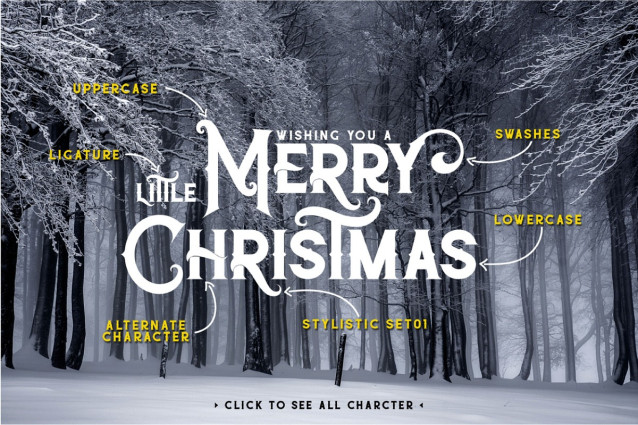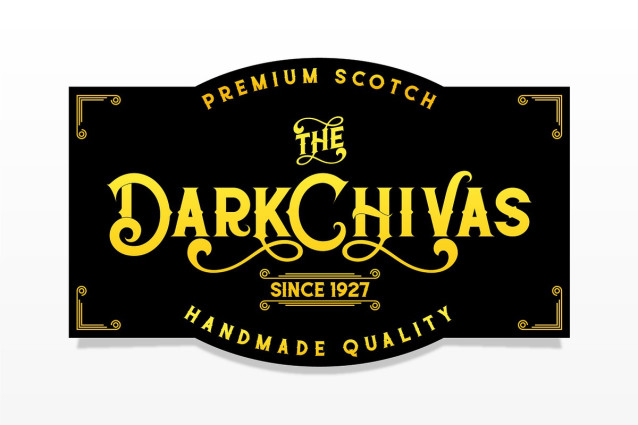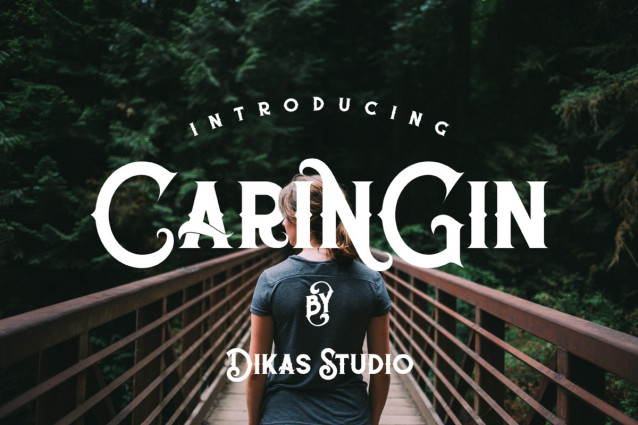
Caringin Font
Caringin Font is all caps font with vintage style. You can mix any alternate character, stylistic alternate and swashes, its very helpfull to make this font look stylish. Caringin is perfect to create any your vintage design project such us branding, logos, product packaging, invitation, qoutes, t-shirt, label, name card, badge, poster etc.